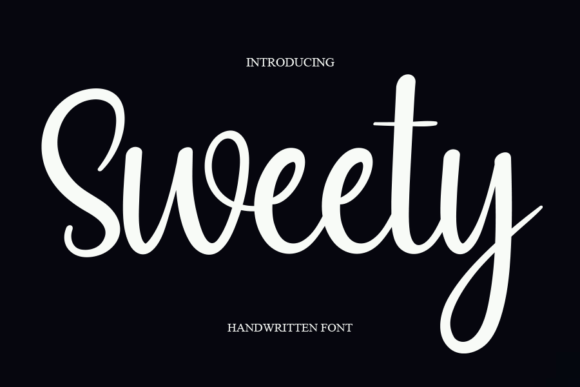
Introducing Sweety Font - the perfect script font for anyone who loves to add a touch of personality to their designs. Created by janurmasahmad, Sweety Font is a fun and friendly handwritten font that is sure to grab attention and leave a lasting impression on your audience.
With its playful curves and loops, Sweety Font is the ideal choice for a wide range of projects, from crafting and digital design to presentations and greeting cards. This font is so versatile that you can use it for any occasion, and it has the potential to become your new favorite go-to font.
If you're looking to add a touch of warmth and charm to your designs, then Sweety Font is the perfect choice. It's full of character and personality, and it's sure to make your message stand out. Plus, it's incredibly easy to use, making it a great option for both beginners and experienced designers alike.